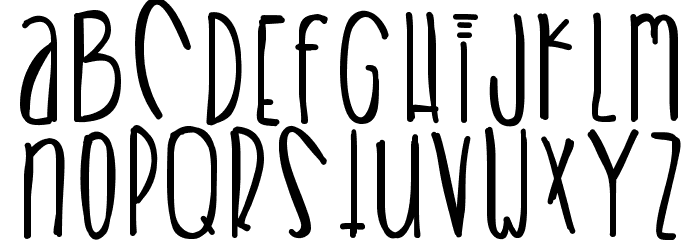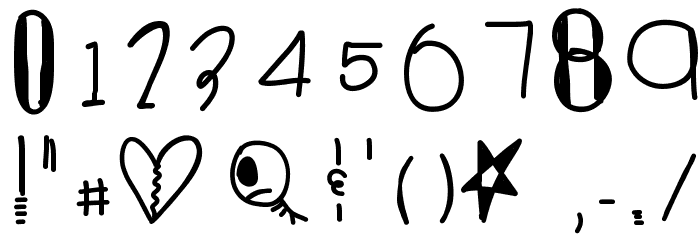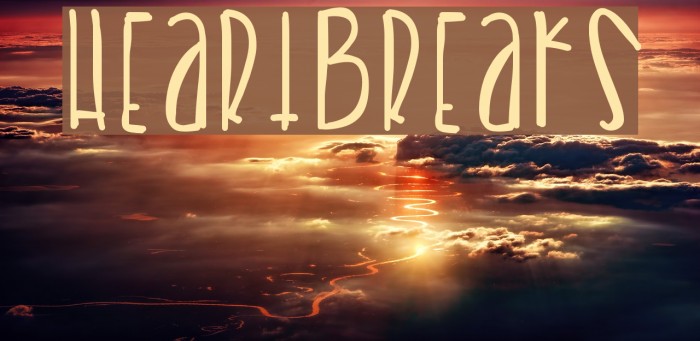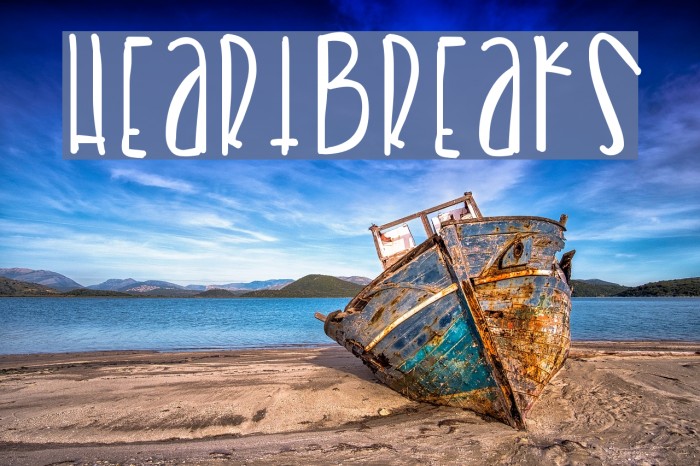
Heartbreaks Font
This font features a playful and quirky design with elongated, irregular strokes that give it a hand-drawn appearance. The uppercase and lowercase letters share a similar style, with tall, narrow forms and slight variations in line thickness. The numbers and special characters maintain this whimsical aesthetic, adding a unique touch to the overall design. The font's distinctive style is characterized by its uneven baseline and varied character heights, which contribute to its casual and informal feel. The special characters, including a heart and a star, enhance its playful nature, making it suitable for creative and artistic projects.
A playful, hand-drawn font with elongated, irregular strokes and a whimsical style.
- Proposed Projects: Ideal for greeting cards, children's books, creative posters, and artistic branding.